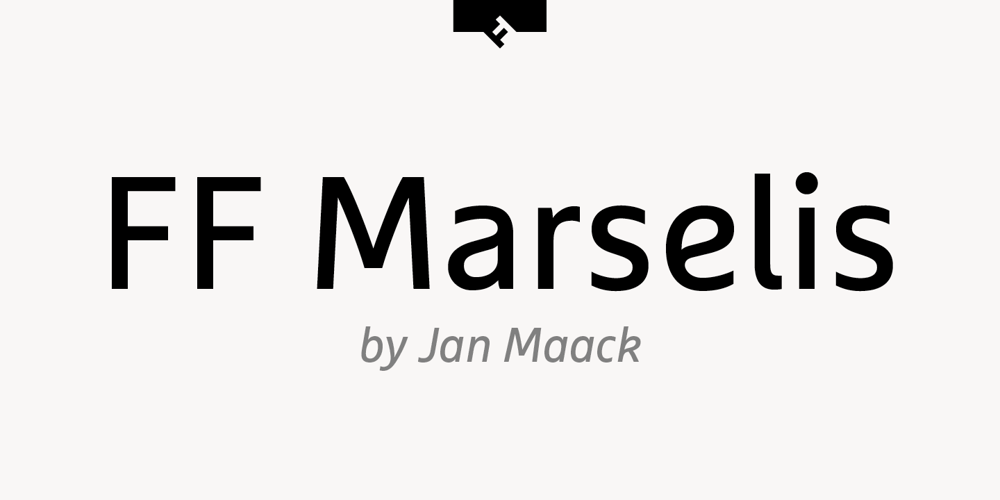
FF Marselis Font Family was designed by Jan Maack and published by FontFont. FF Marselis contains 8 styles and family package options. Danish type designer Jan Maack created this sans FontFont in 2012. The family has 8 weights, ranging from Light to Black (including italics) and is ideally suited for advertising and packaging, logo, branding and creative industries as well as web and screen design. FF Marselis provides advanced typographical support with features such as ligatures, alternate characters, case-sensitive forms, fractions, super- and subscript characters, and stylistic alternates.The typeface was selected as one of Typographica’s favorite typefaces of 2012. It comes with a complete range of figure set options – oldstyle and lining figures, each in tabular and proportional widths.